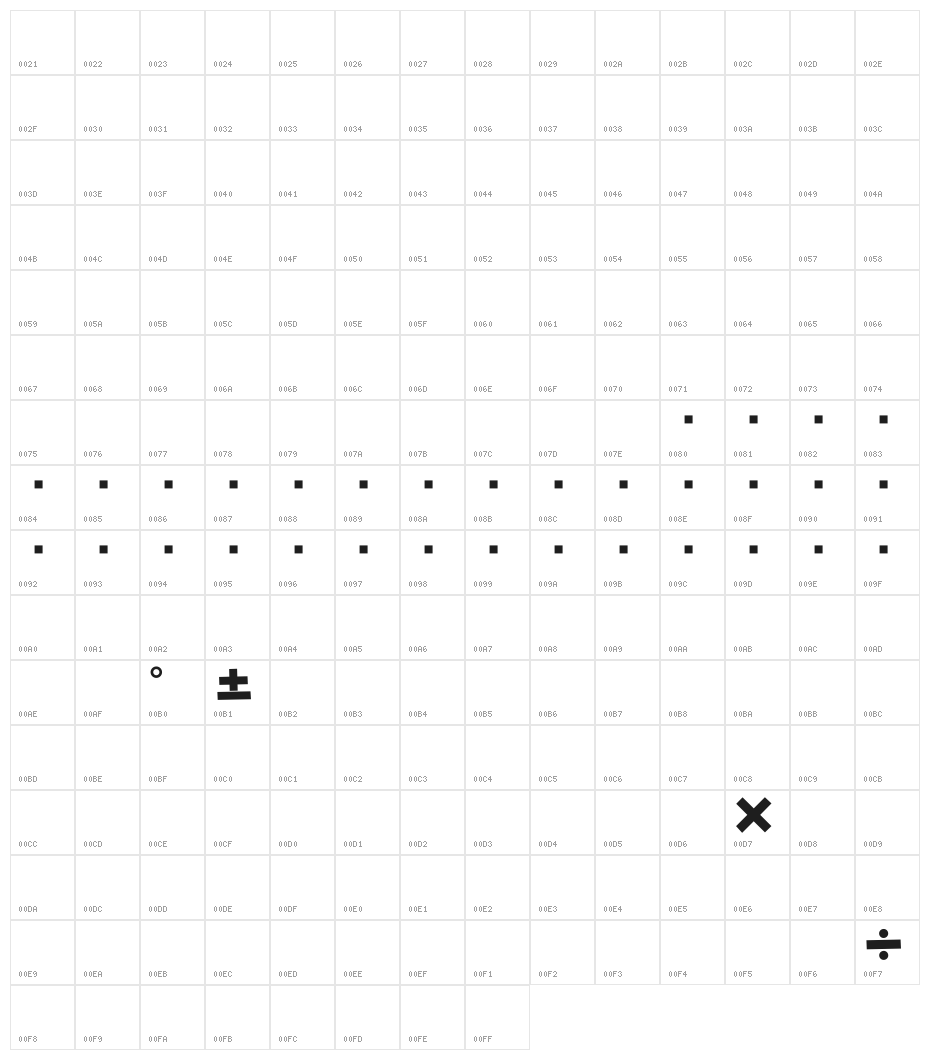
haramase_nyanko marumi Font
haramase_nyanko marumi Description
This font features a playful and rounded style, characterized by its smooth curves and friendly appearance. The letters are evenly spaced, providing a clean and approachable look. It maintains a consistent stroke width, giving it a uniform and balanced feel. The design is simple yet effective, making it suitable for a variety of uses where a light-hearted and informal tone is desired. The characters are easily legible, with a modern twist that adds a touch of whimsy to any text.
| Proposed Projects | Ideal for children's books, playful branding, casual invitations, and social media graphics. |